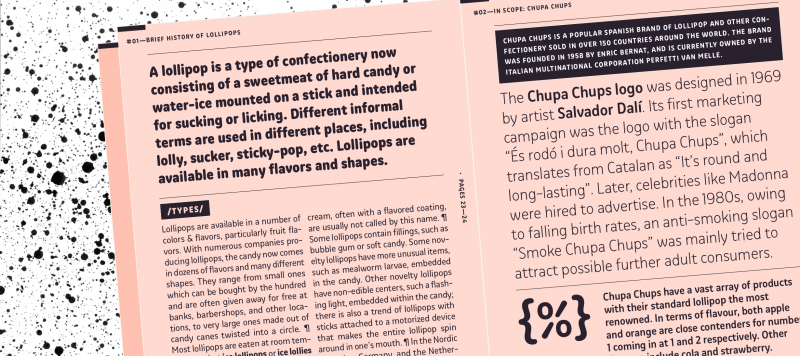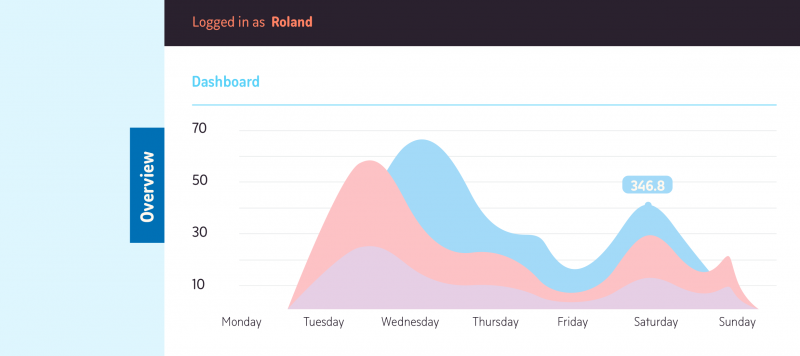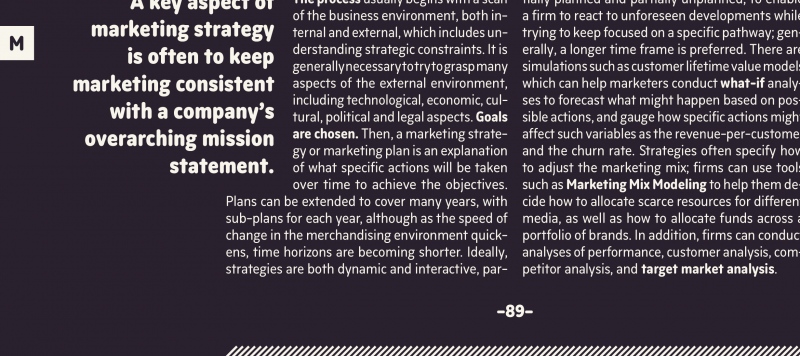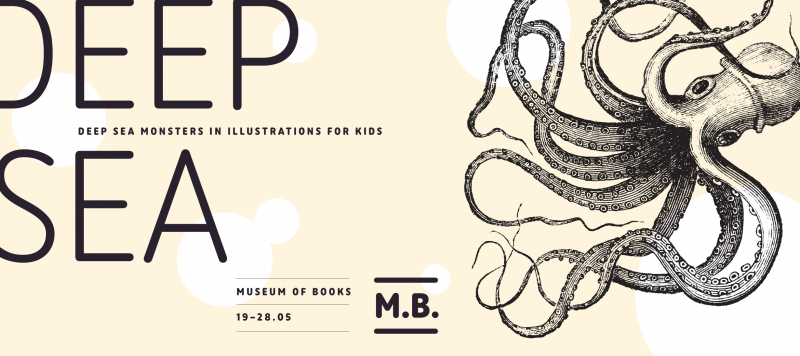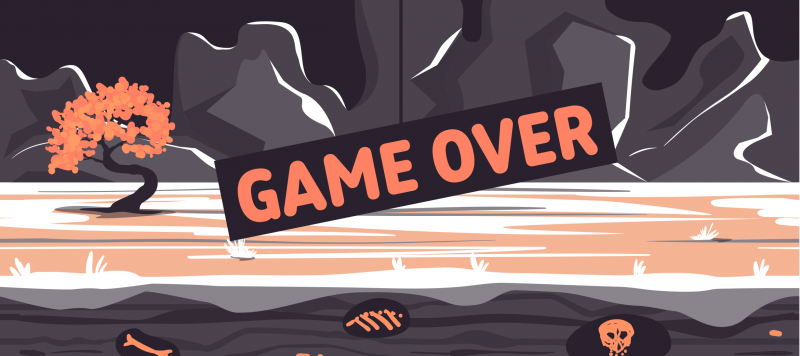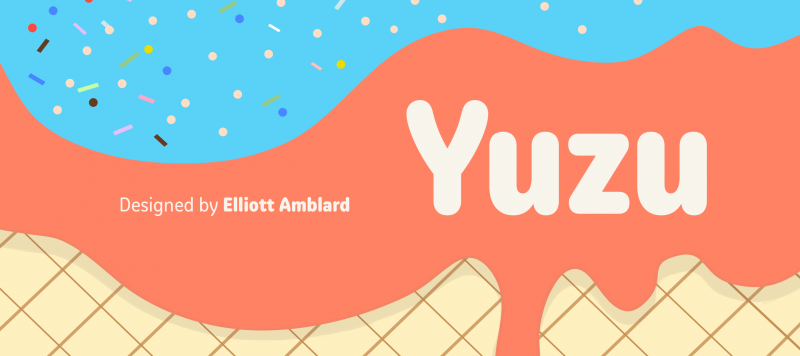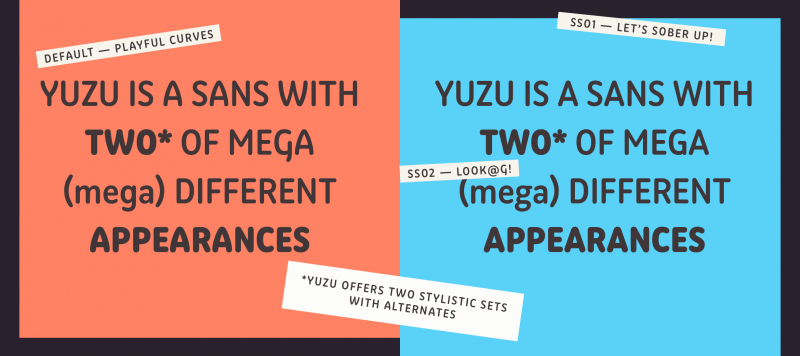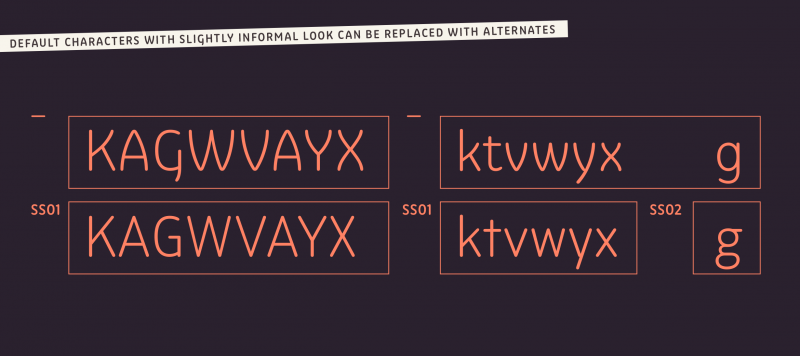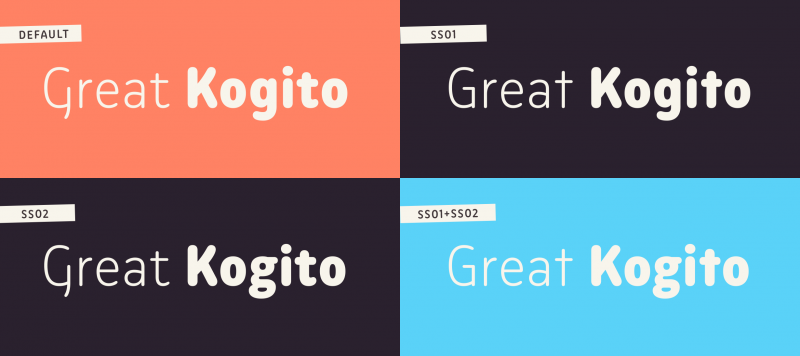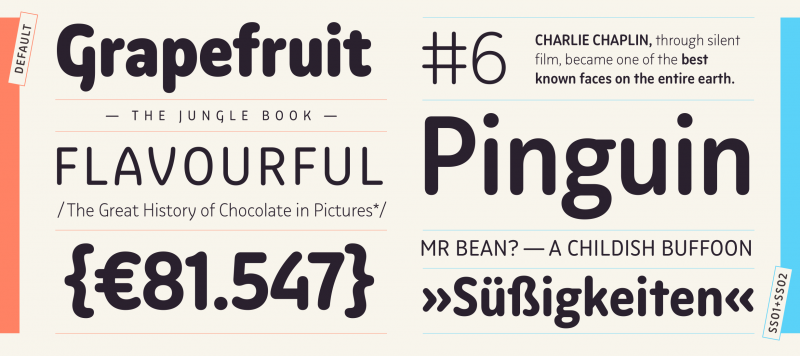
Yuzu is a soft sans for branding. It features rounded stroke-endings and slightly narrow caps. Aside from its terminals, other soft features in the design include a beard on bottom-right of the capital ‘G’, and arched diagonals on ‘A’ ‘K’ ‘V’ ‘W’ ‘X’ ‘Y’ ‘k’ ‘v’ ‘w’ ‘x’ ‘y’ ‘4’ and ‘7’. The fonts include two OpenType Stylistic Sets with alternate letterforms. Stylistic Set 1 includes alternate versions of the typeface’s diagonal letters, with straight strokes, and an alternate ‘G’. The standard lowercase ‘g’ has a single-storey form, and Stylistic Sect 2 switches this out with a double-storey version.
Family Name | Yuzu |
Designer(s) | Elliott Amblard |
Classification | Display, Sans |